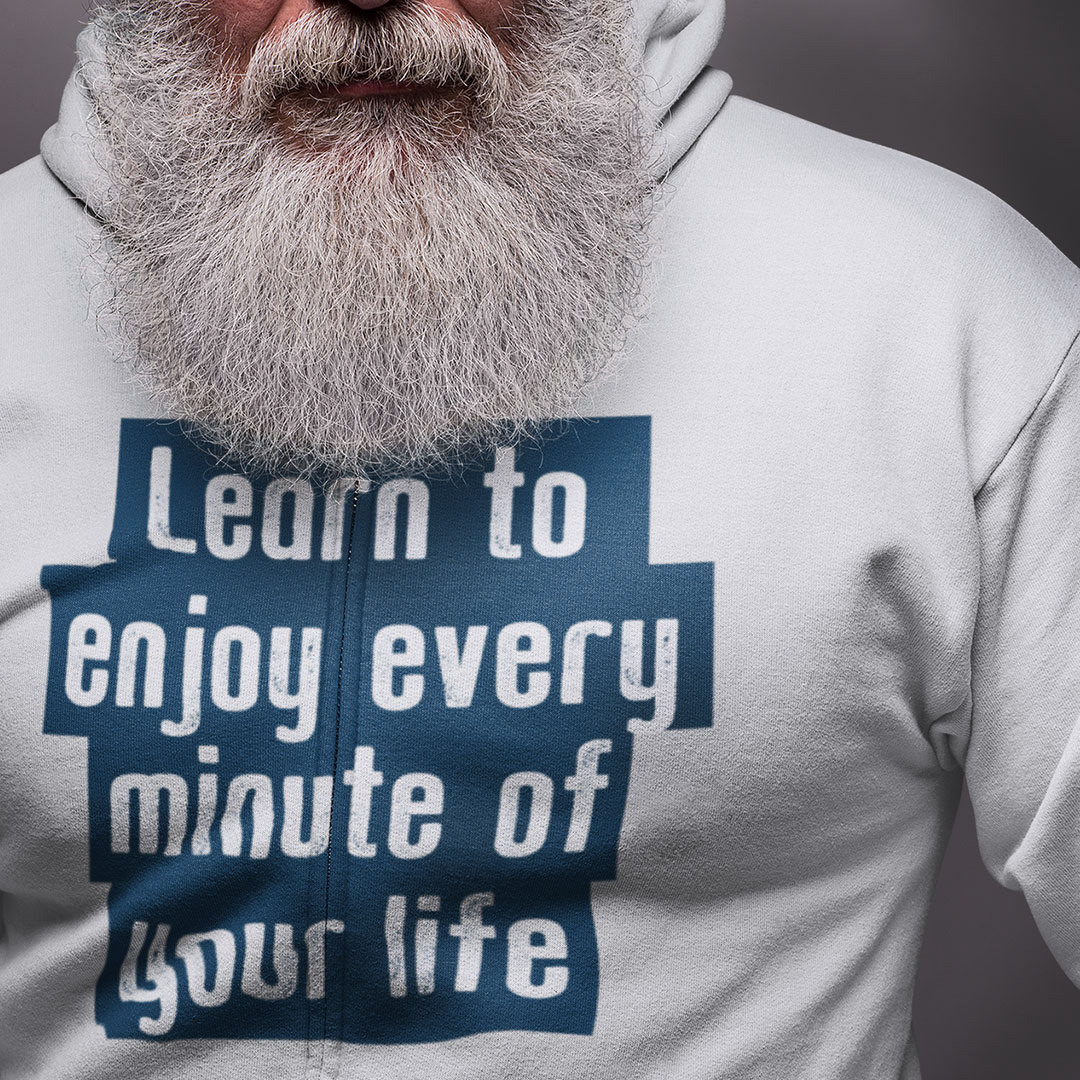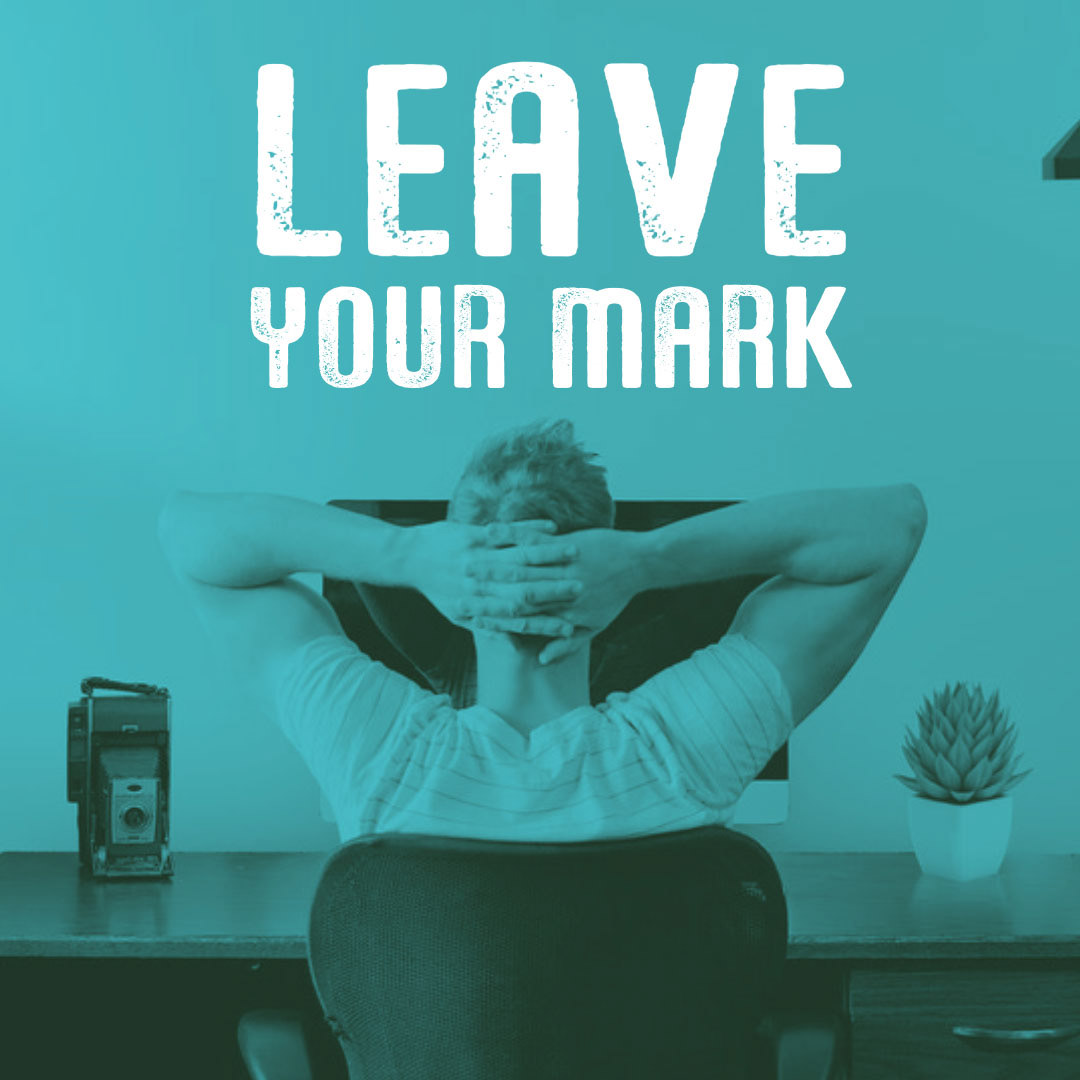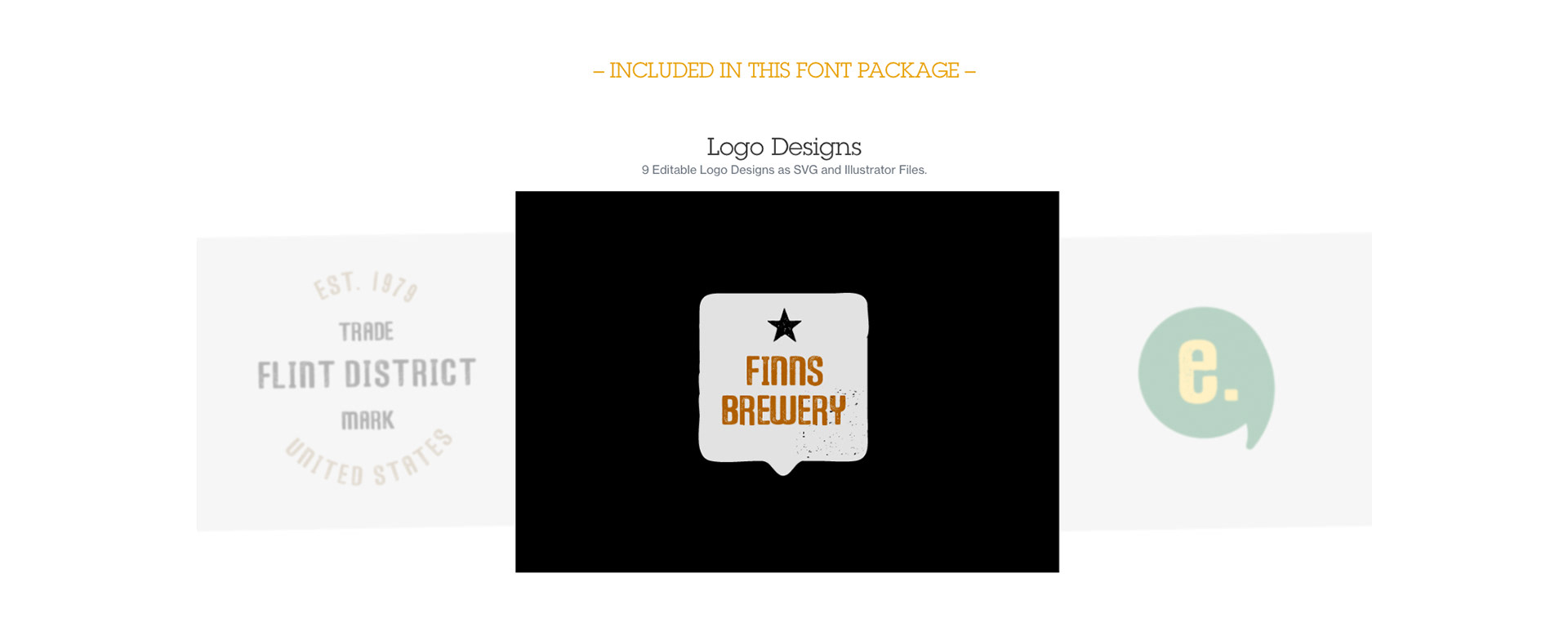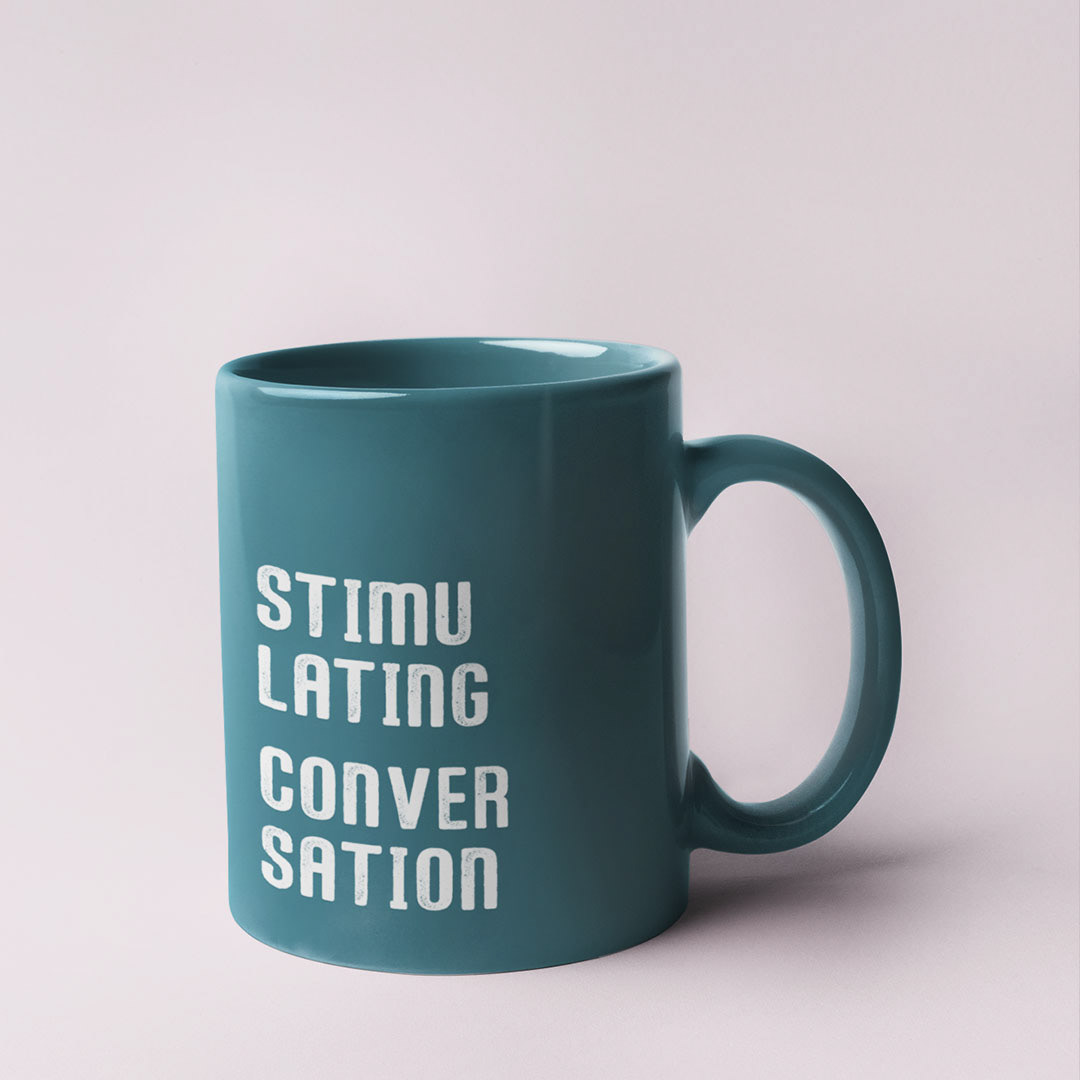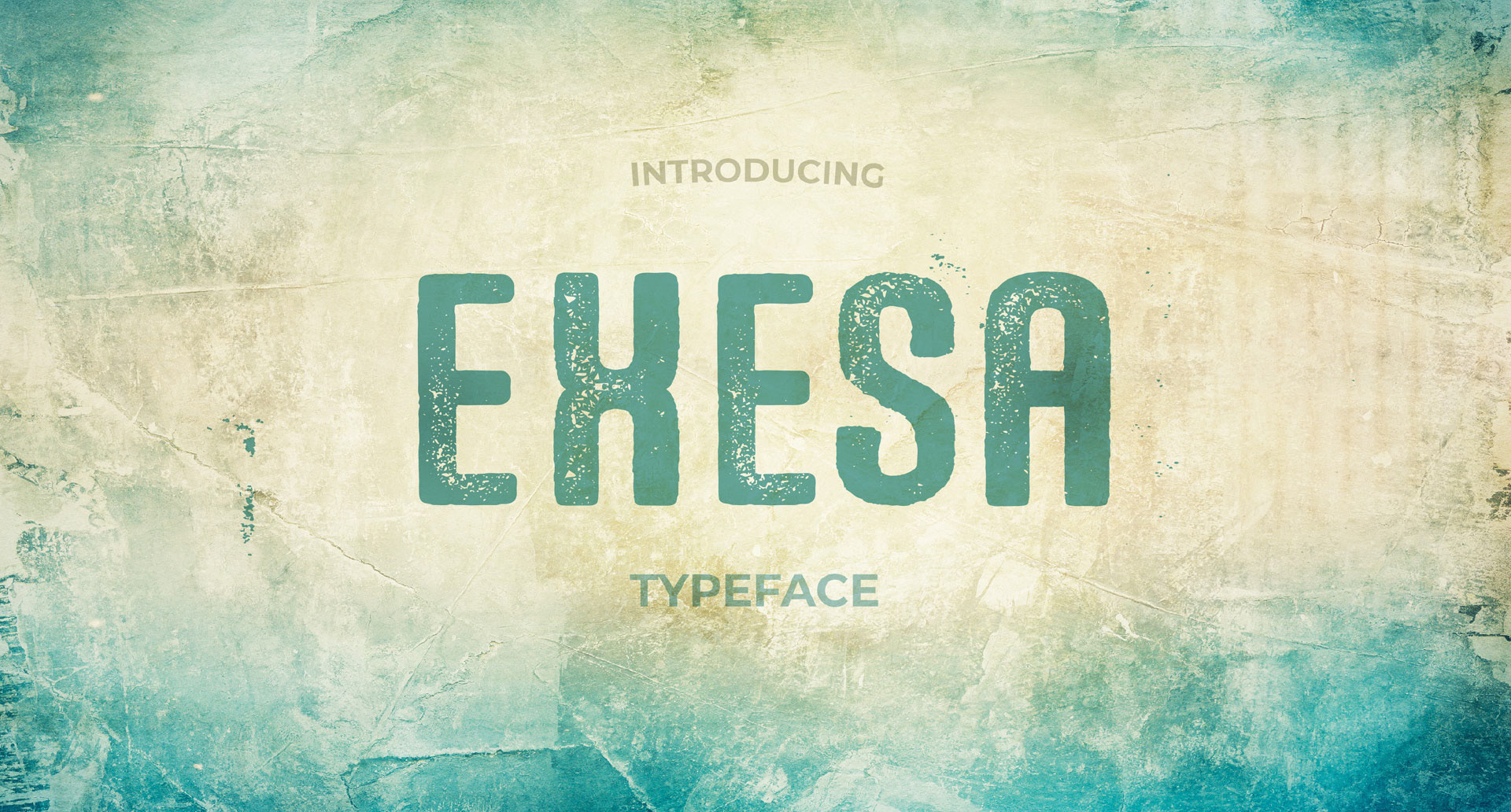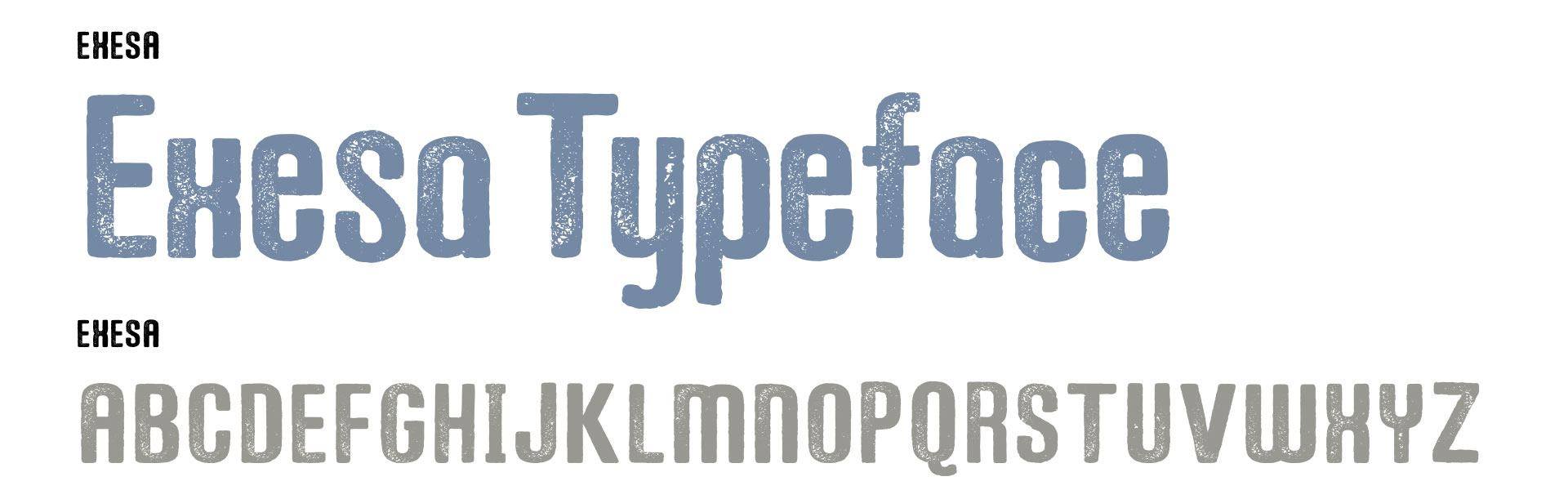
Exesa is a handmade stamp effect font that  was built for a project that needed a distressed vintage feel. The mix with rounded letters made it unique and was developed further to a font due to requests and popularity.
Used in many brands, it works well as titles on packaging and signage has been used in cafes for vintage effects and restaurants to bring depth and texture to a design.
Built and developed from feedback this multi-language font has a wide range of letters and glyphs and stylistic alternates and bringing unique flourishes and personality to a project. With this font you will also receive example editable layout designs to help build your design quickly and inspire your next project.